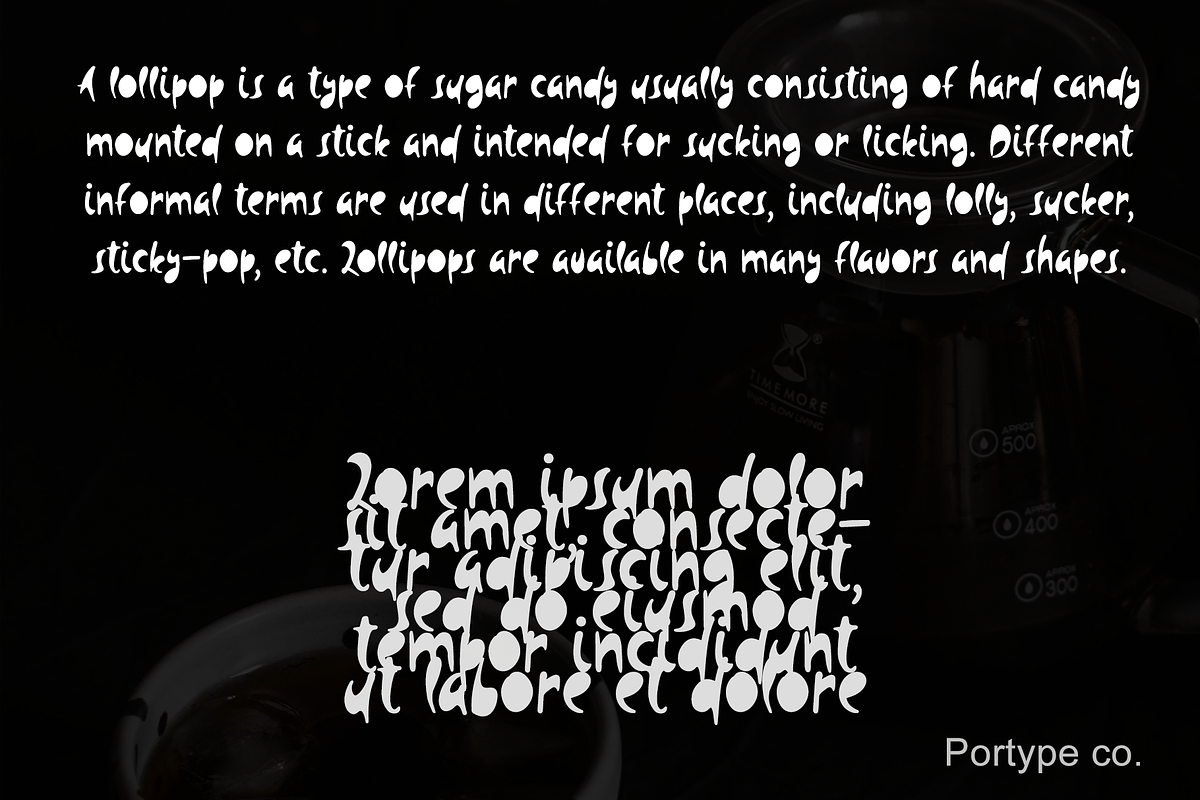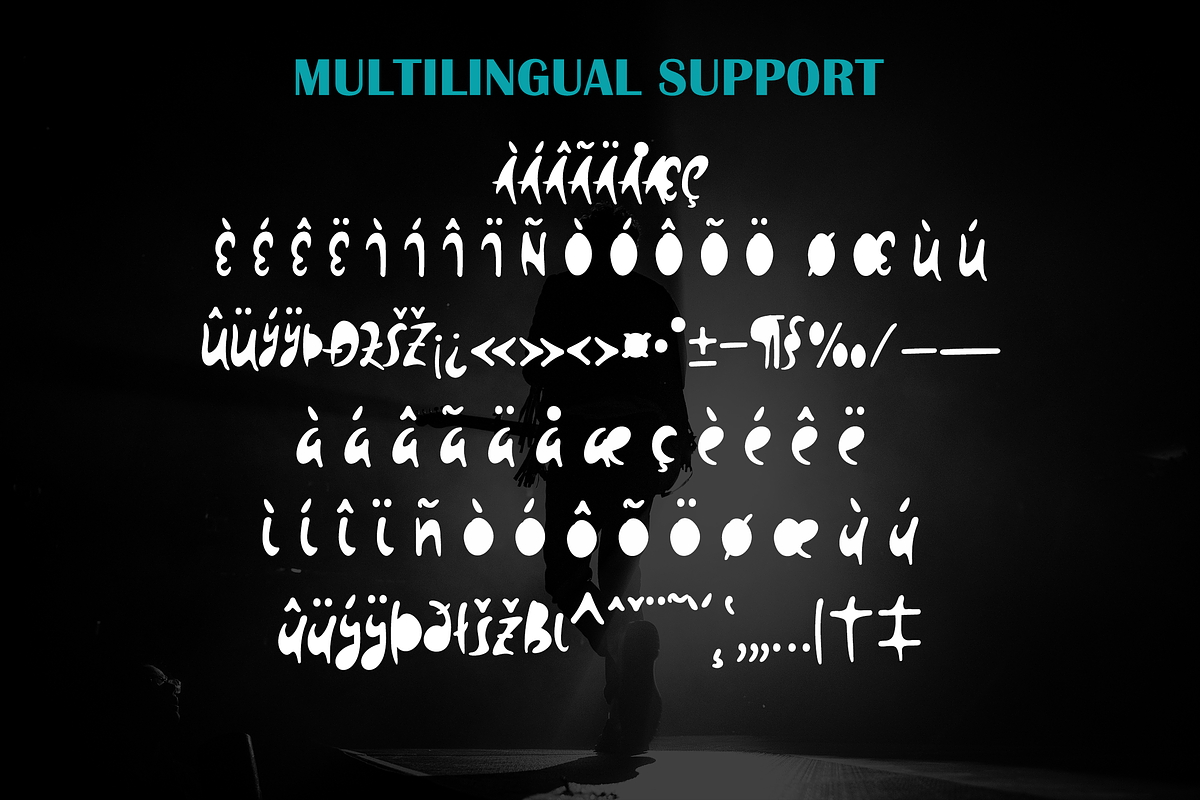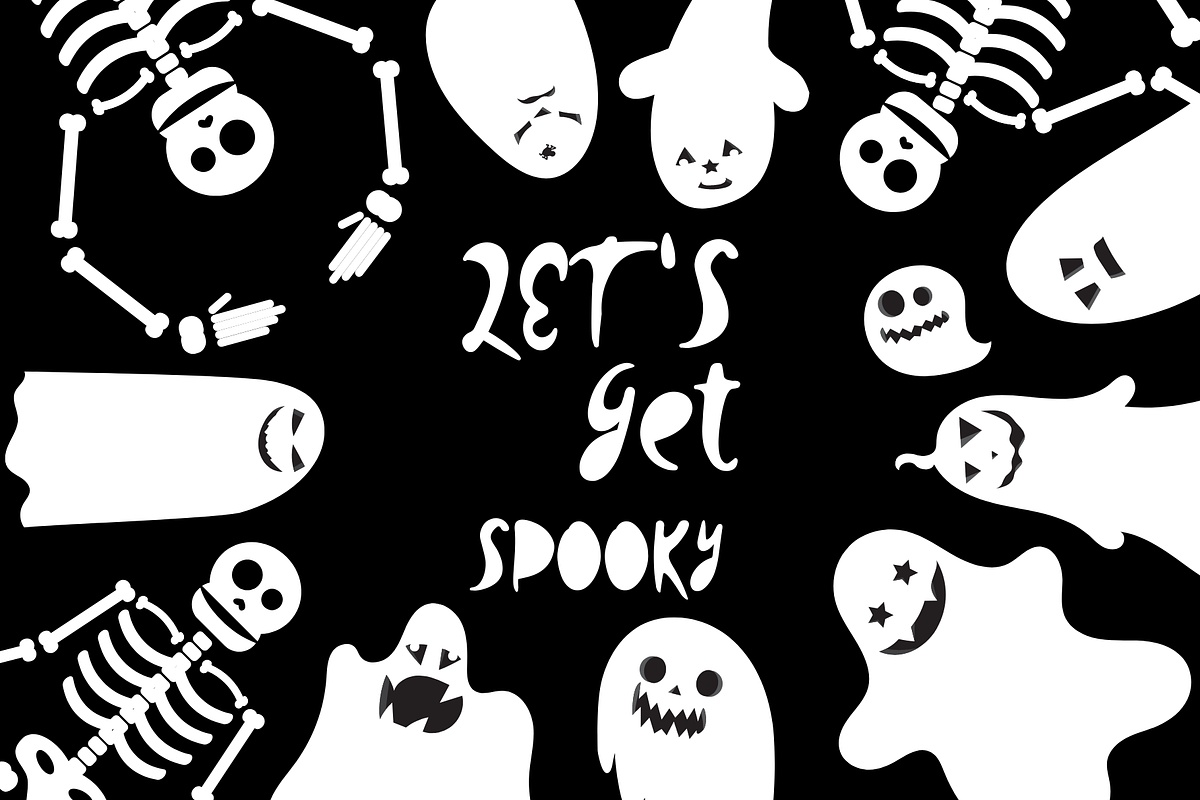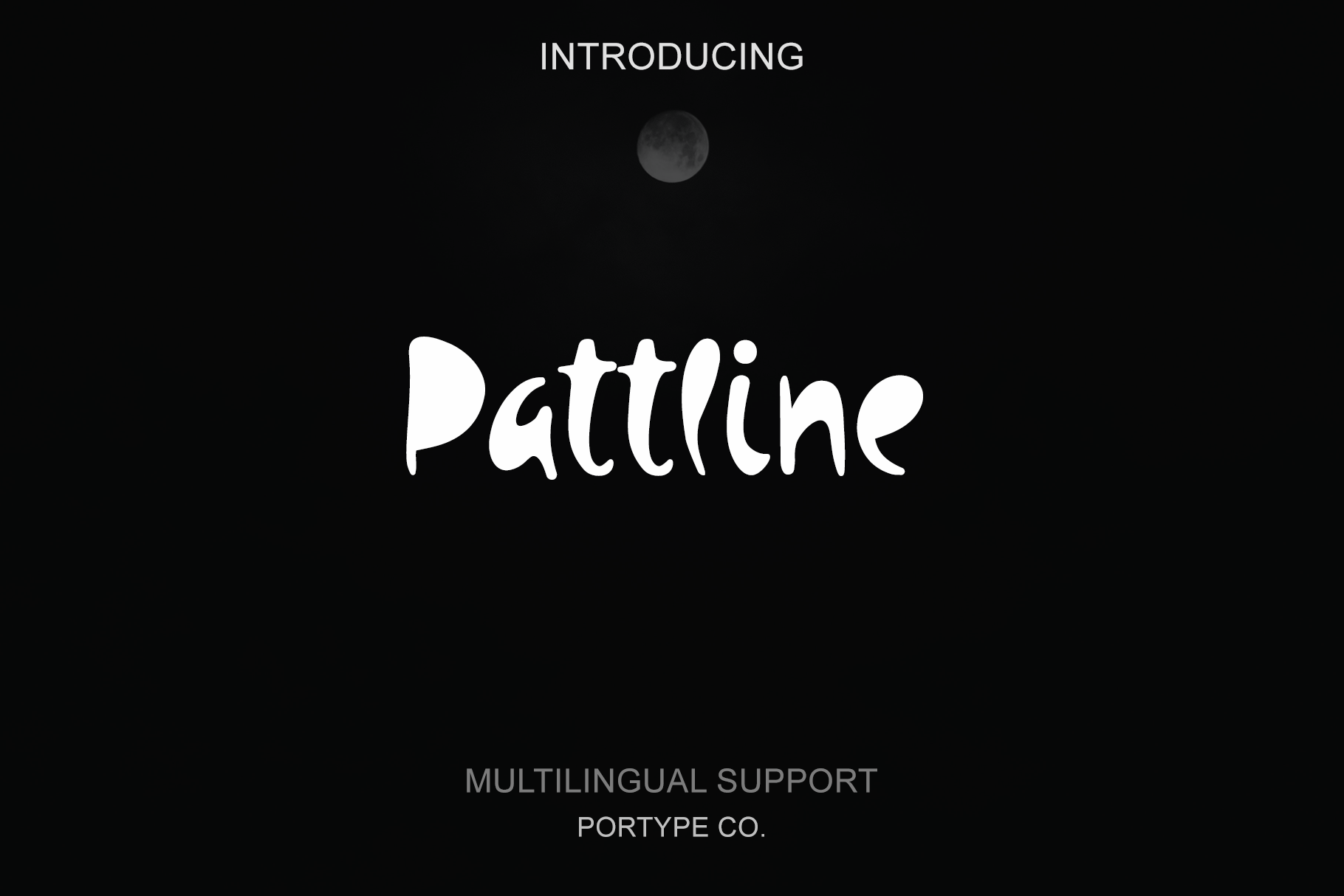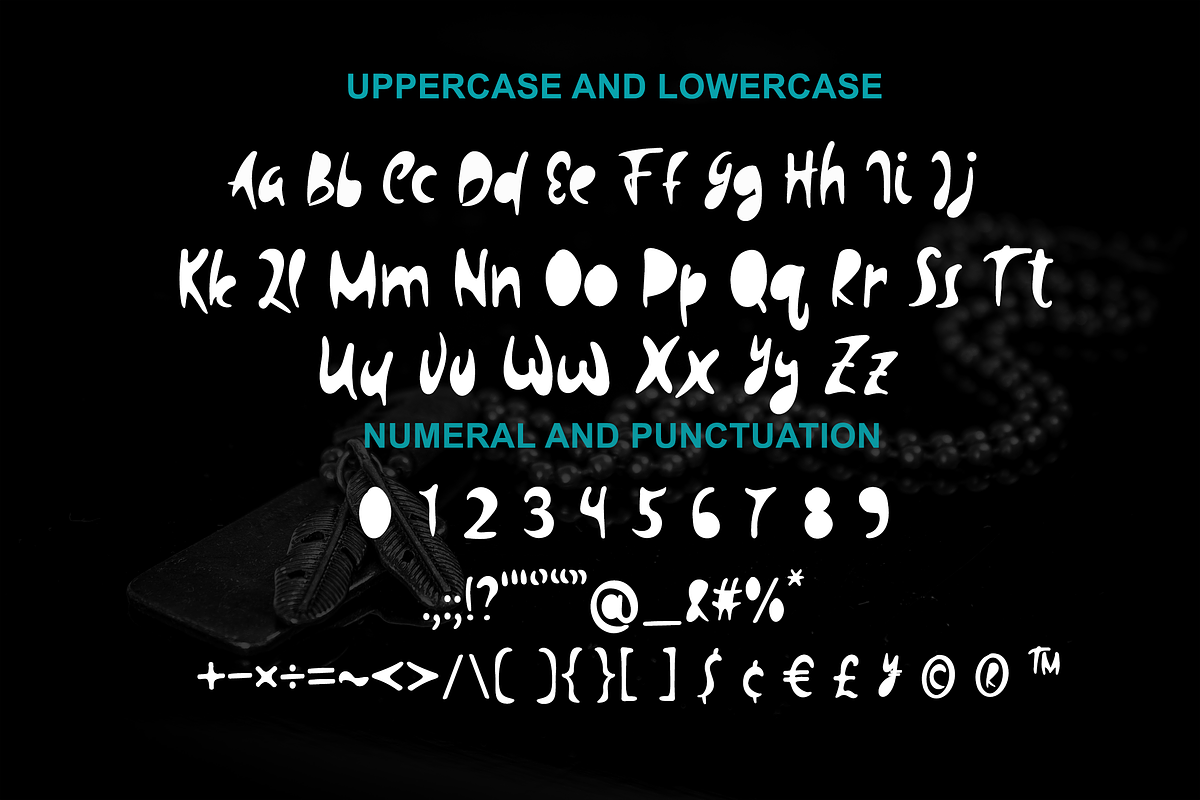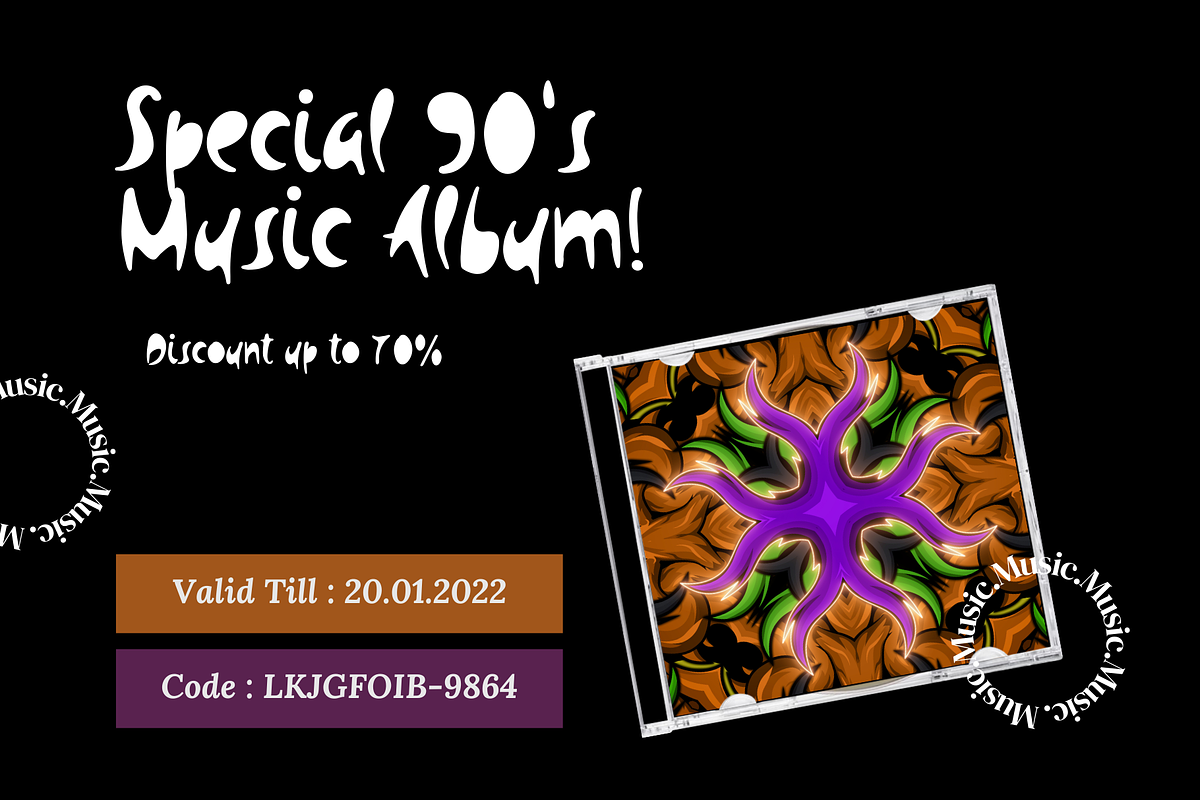
Pattline font - Wordart
Pattline is a Display font. It was inspired by WordArt. The font looks casual and playful. It's perfect for handwritten notes, sweet greeting cards, beautiful quotes, and stand-out branding as well. Suitable for any design needs, pattern, branding, urban design, modern advertising design, Book/Cover Title, special events, adventures, headlines, clothing and more.